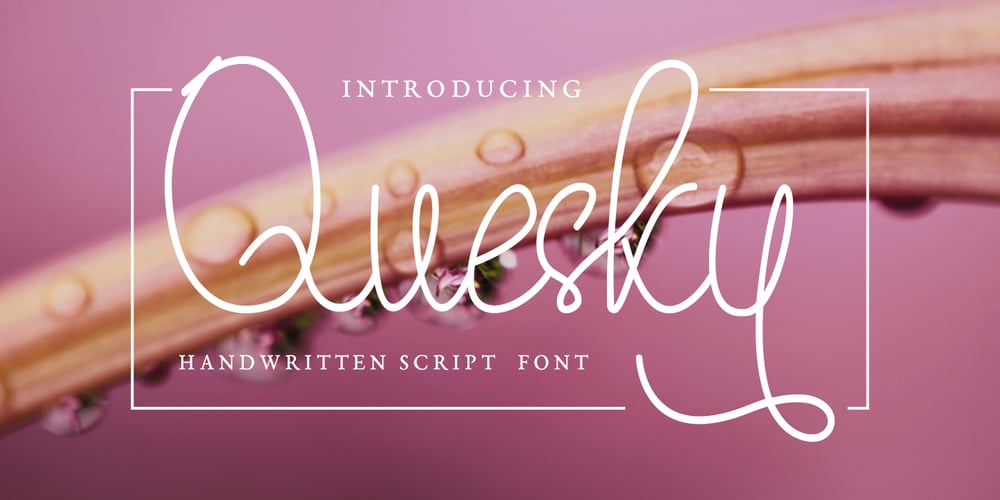
Quesky Font Family was designed by Muhammad Khoirul Amal and published by CBRTEXT Studio. Quesky contains 1 styles and family package options. Quesky is a classy Handwritten Script in a casual and distinctive style that is perfect for your branding design, and will also be very beautiful in your wedding invitations and business cards and especially for your brand logo. Quesky has beautiful uppercase and lowercase letters, numbers, and very realistic binding standards. Quesky also has several alternative letters that can make your project look modern, luxurious and classy.